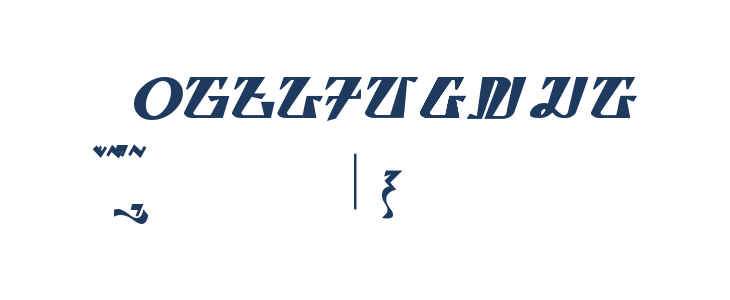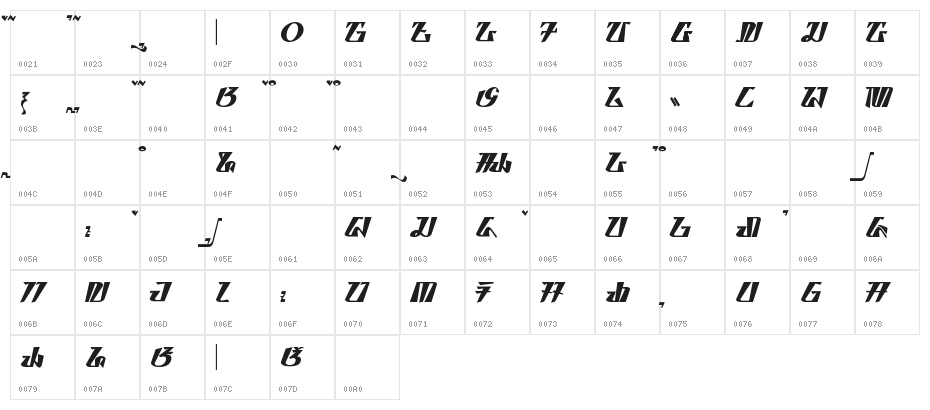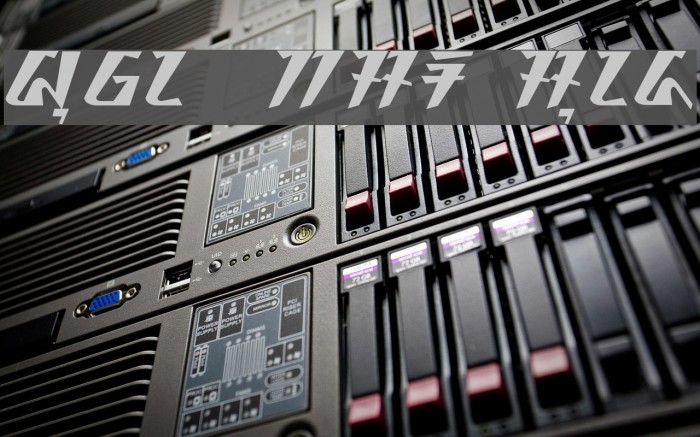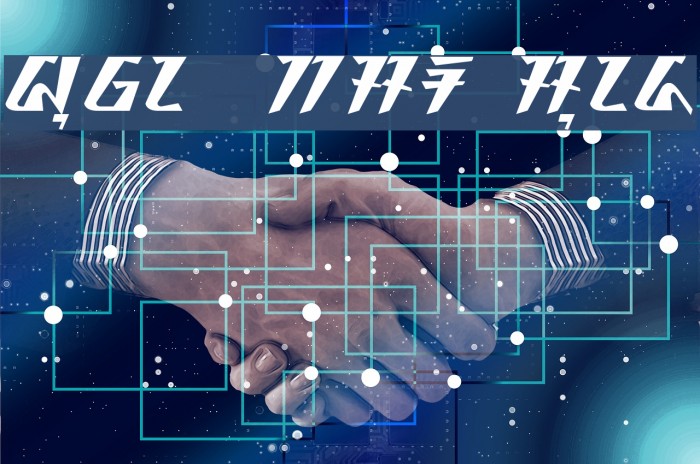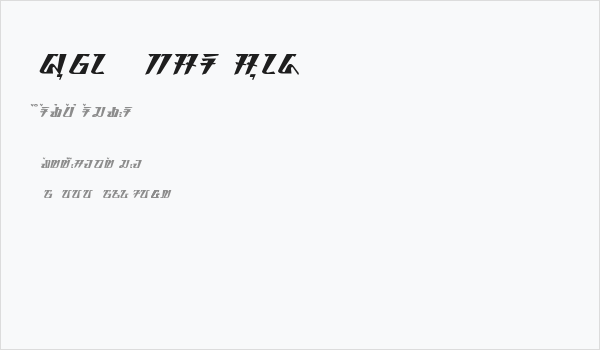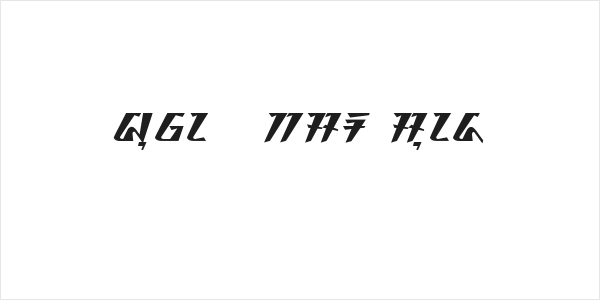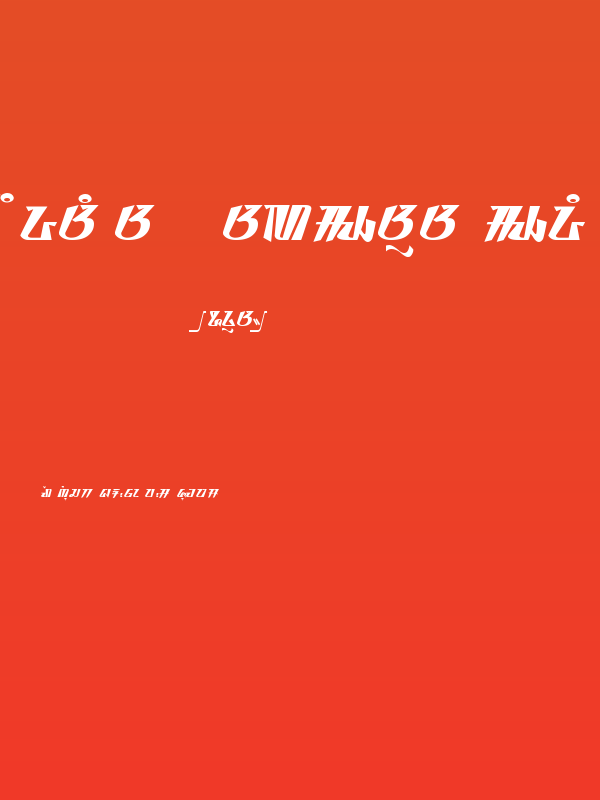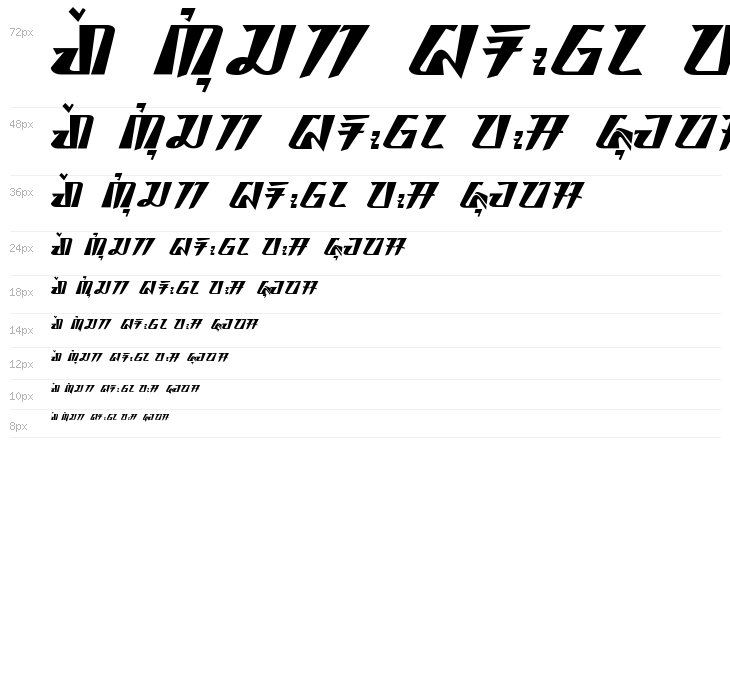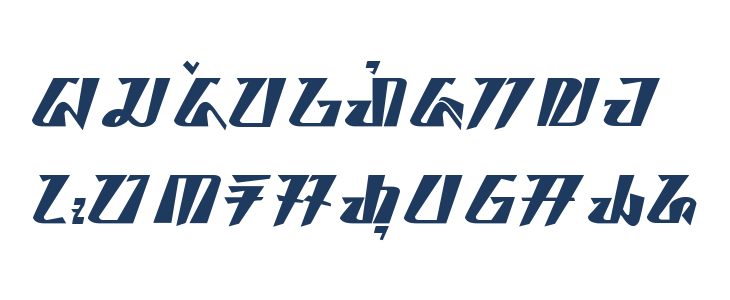
buwana - aksara sunda Font
buwana - aksara sunda Description
This font features a unique and bold style inspired by traditional Sundanese script. The characters are angular and geometric, with a strong emphasis on vertical and diagonal lines, creating a dynamic and energetic appearance. The strokes are thick and consistent, providing a sense of stability and strength. The overall design is both modern and culturally rich, making it suitable for projects that require a touch of ethnic authenticity and contemporary flair.
| Overall Style | Modern, Ethnic |
| Proposed Projects | Ideal for cultural projects, branding, posters, and any design that seeks to incorporate ethnic or traditional elements with a modern twist. |